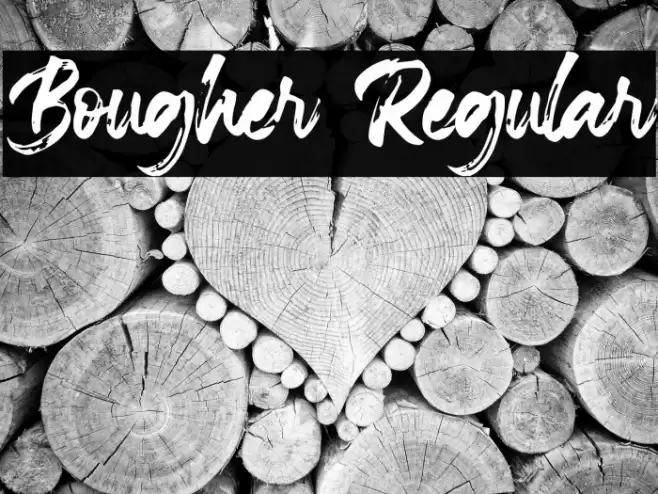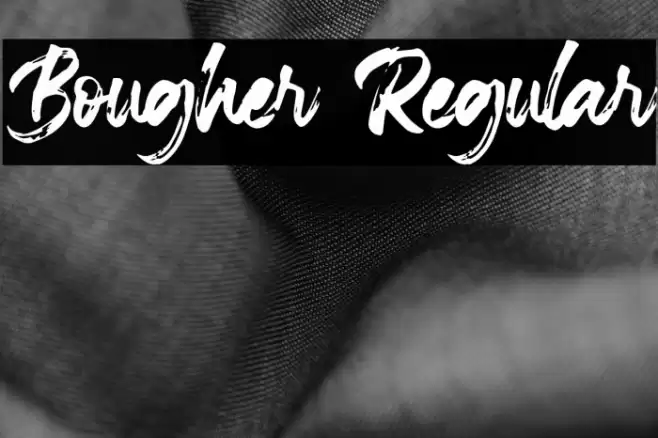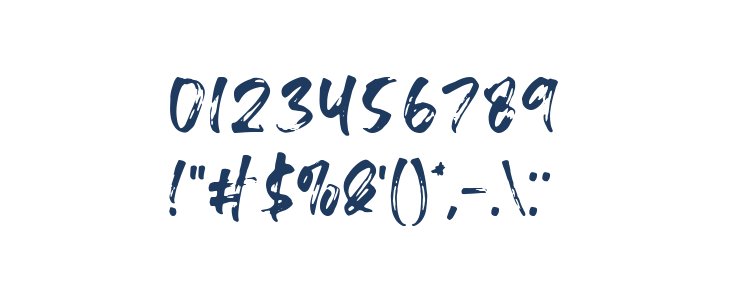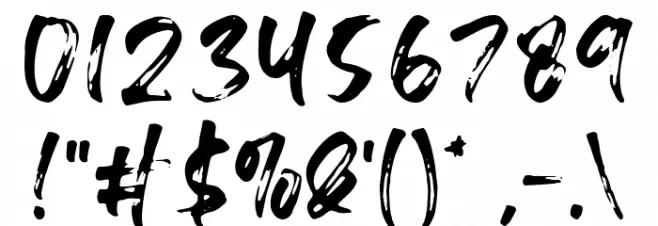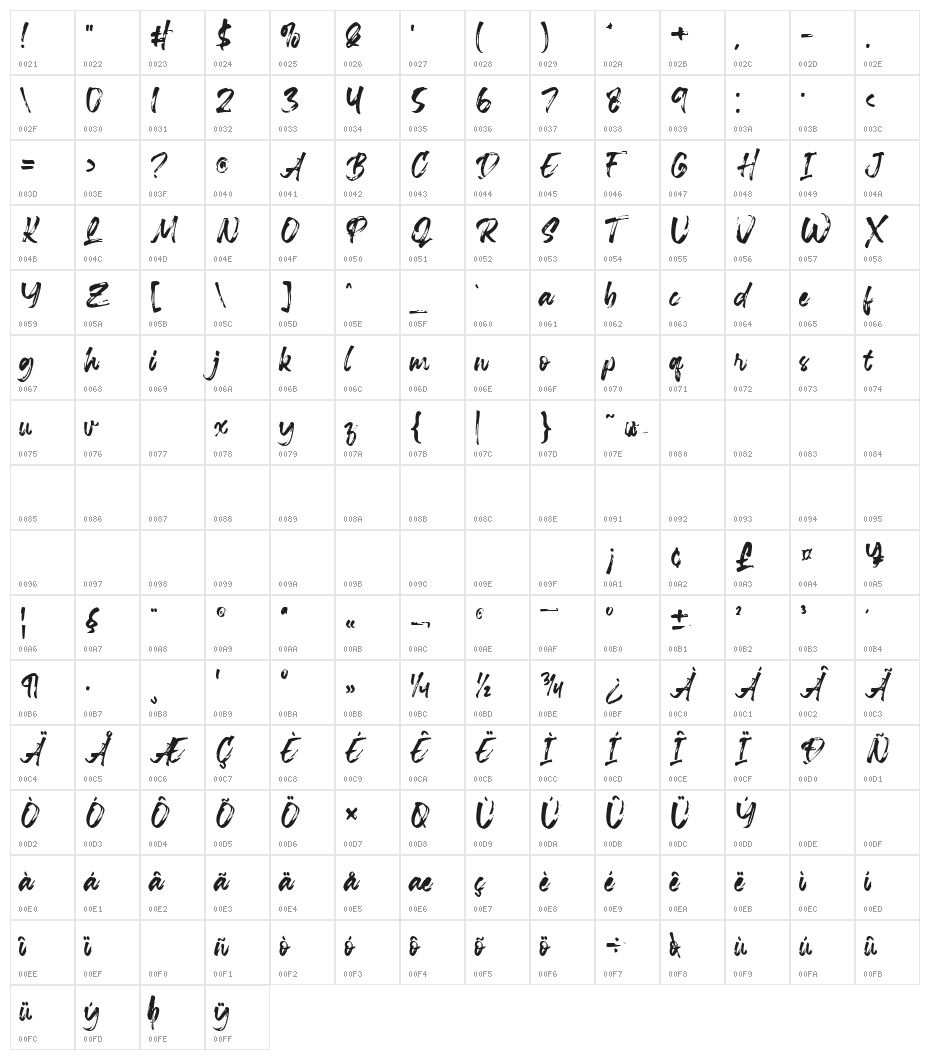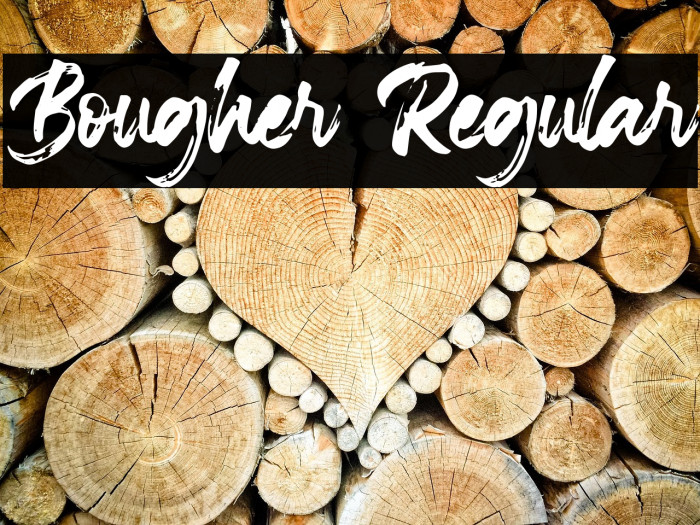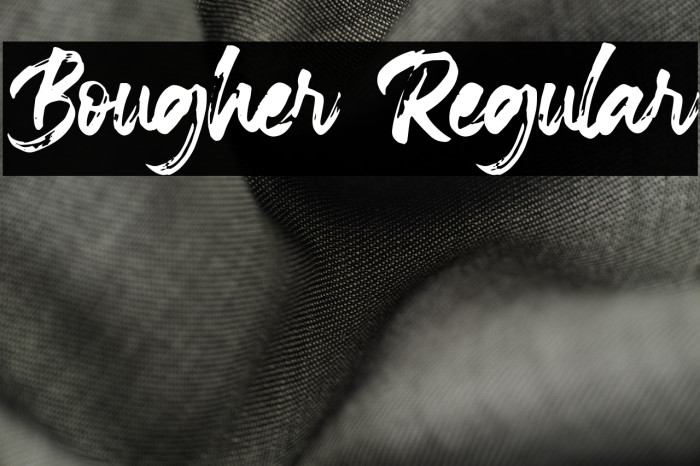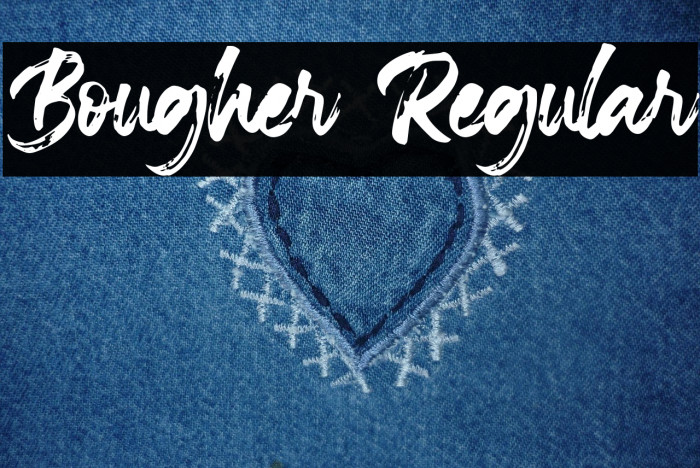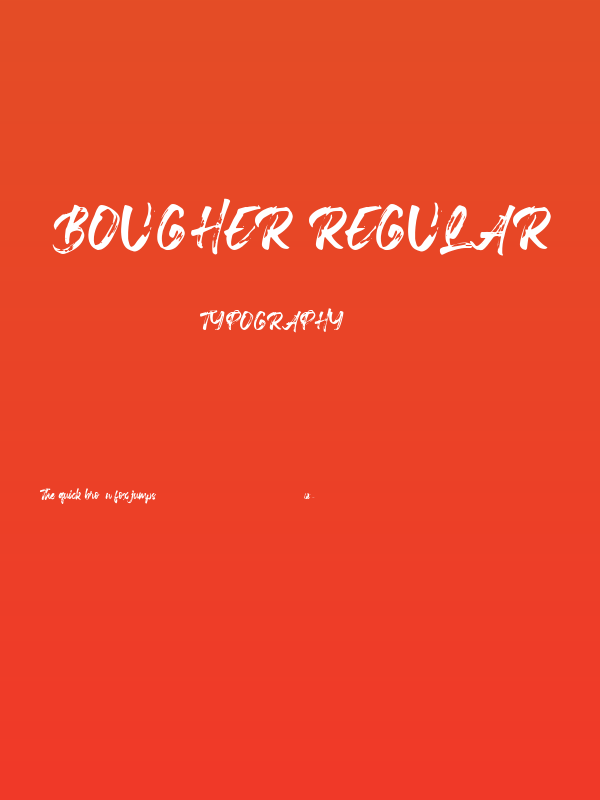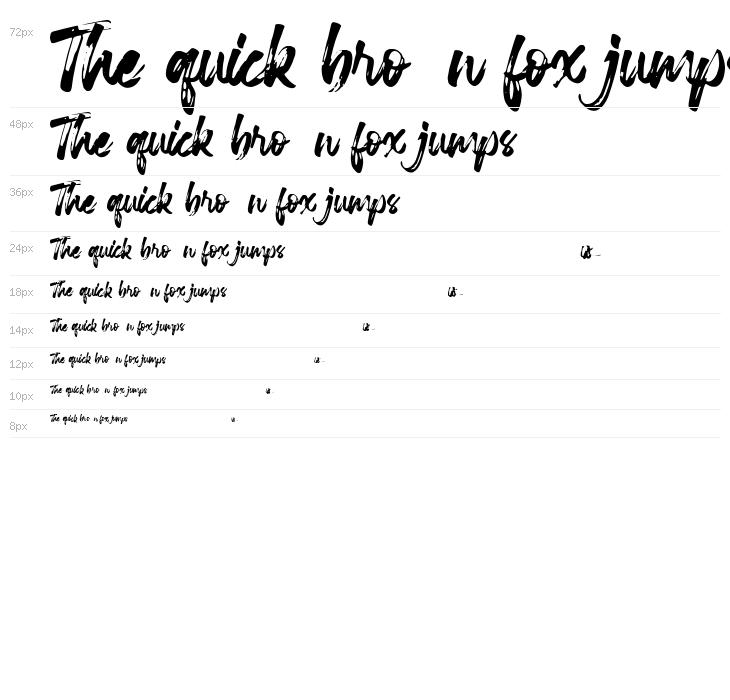
Bougher Regular Font
Bougher Regular Description
This font features a bold and expressive brush script style, characterized by its dynamic and fluid strokes. The letters exhibit a hand-painted appearance, with varying thickness that adds a sense of movement and energy. The uppercase letters are bold and prominent, while the lowercase letters maintain a cohesive flow, enhancing the overall aesthetic. The numbers and special characters follow the same artistic style, making the font versatile for creative projects. Its artistic flair makes it suitable for designs that require a personal and handcrafted touch.
A bold, expressive brush script font with dynamic, fluid strokes from Regular fonts.
- Proposed Projects: Ideal for branding, packaging, posters, and invitations where a personal, artistic touch is desired.